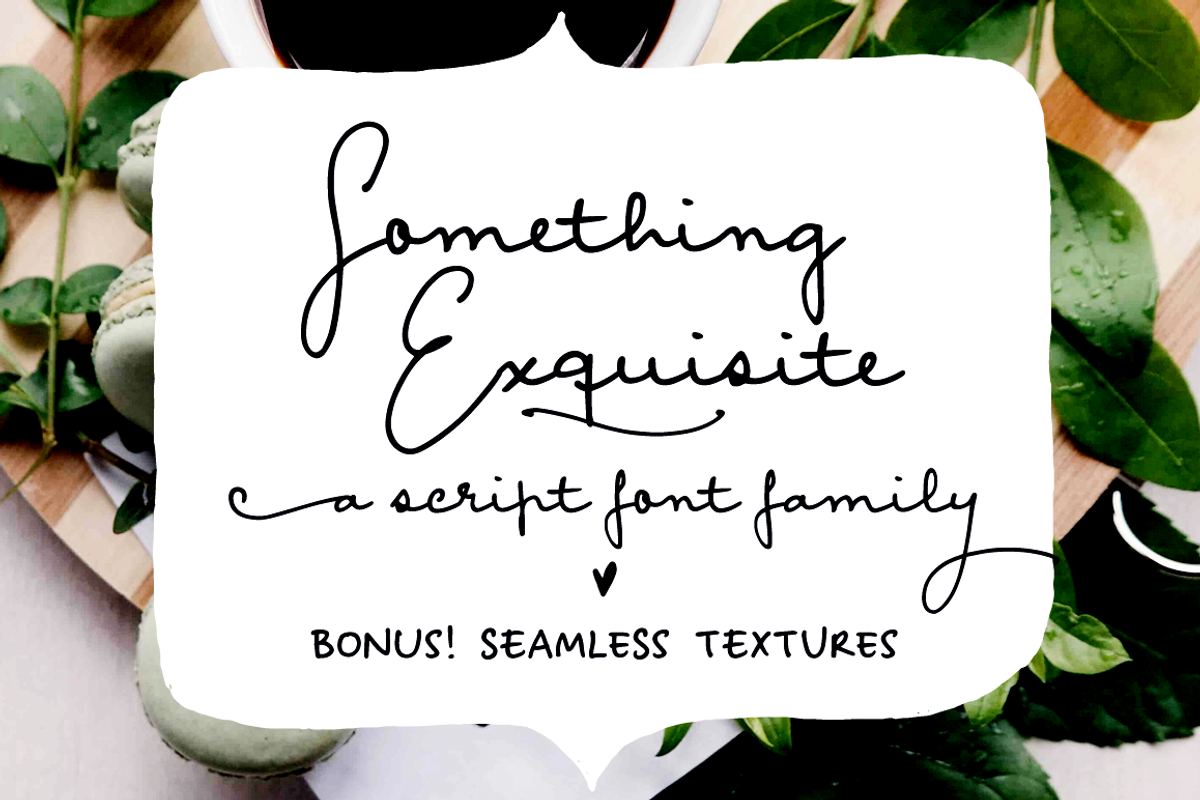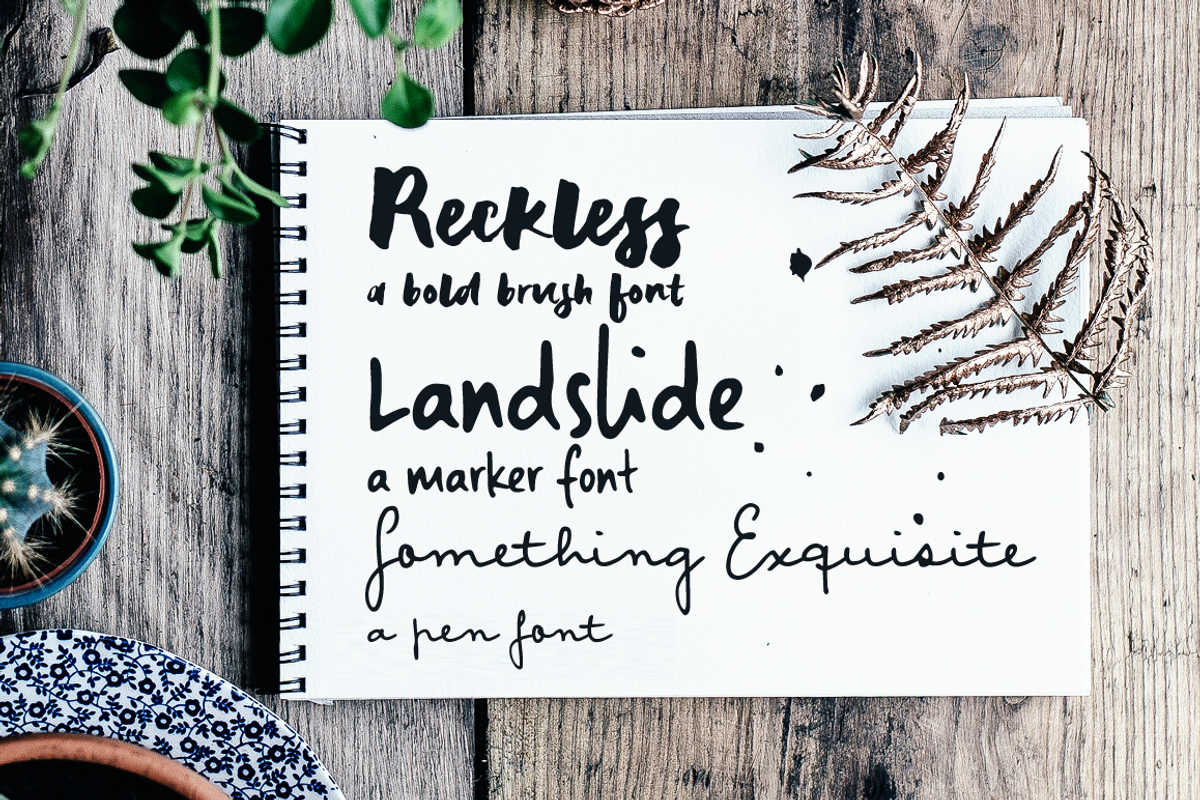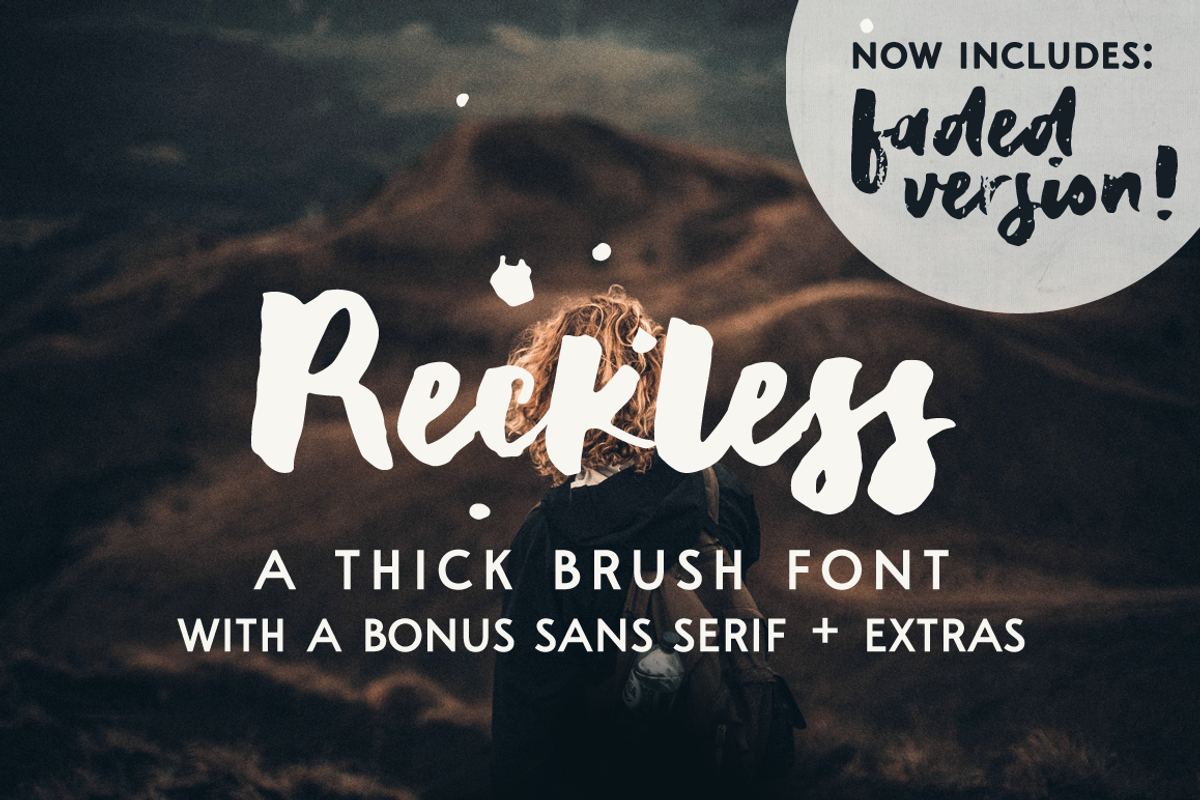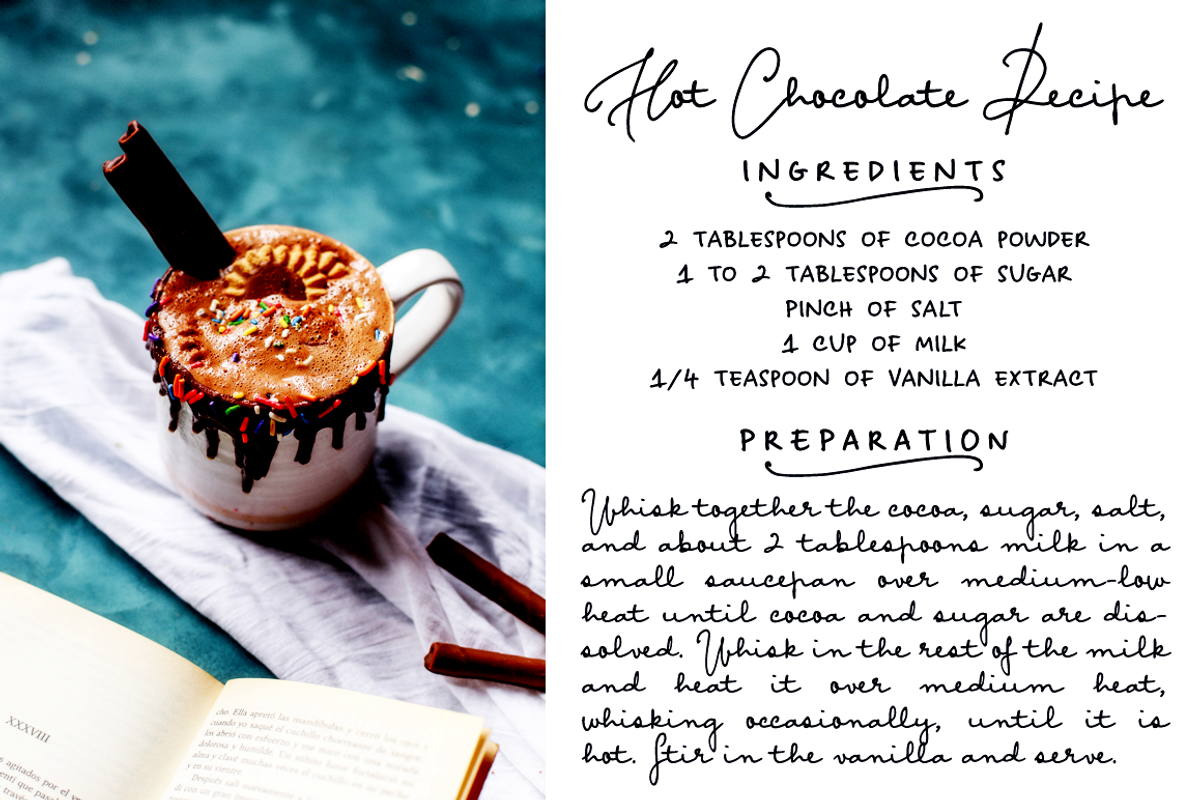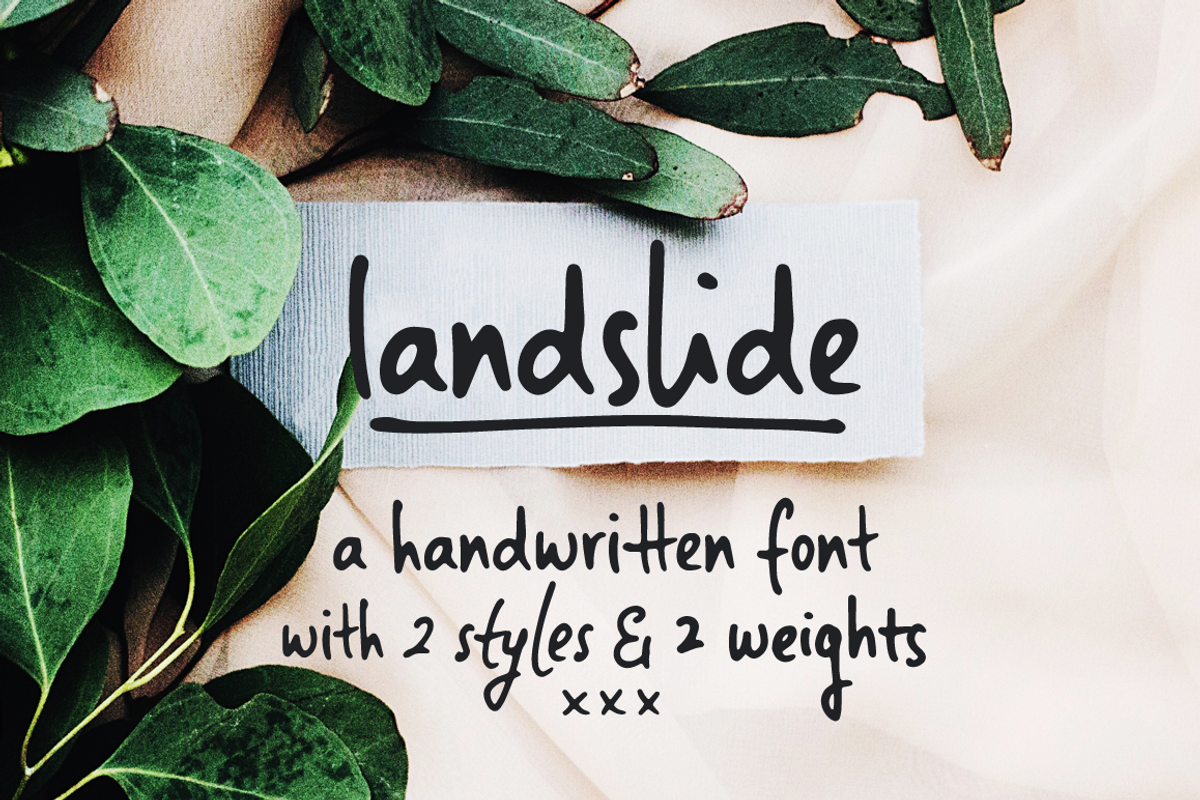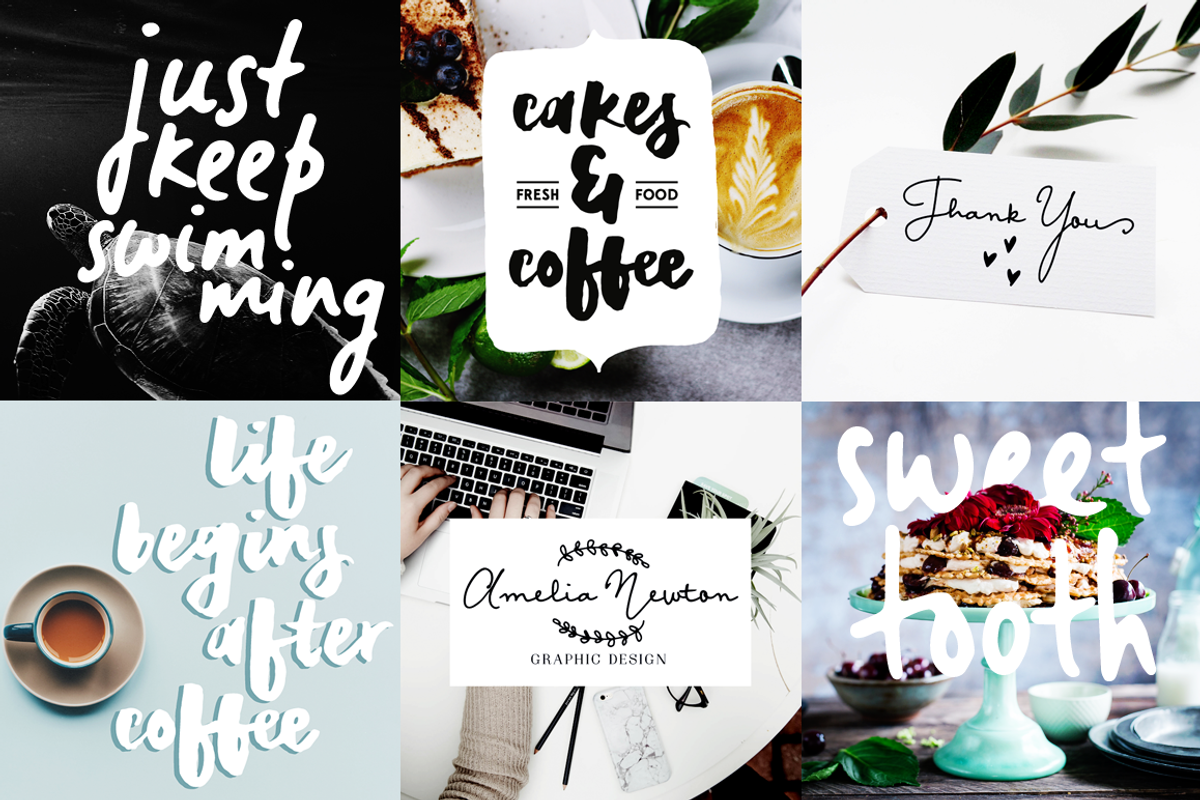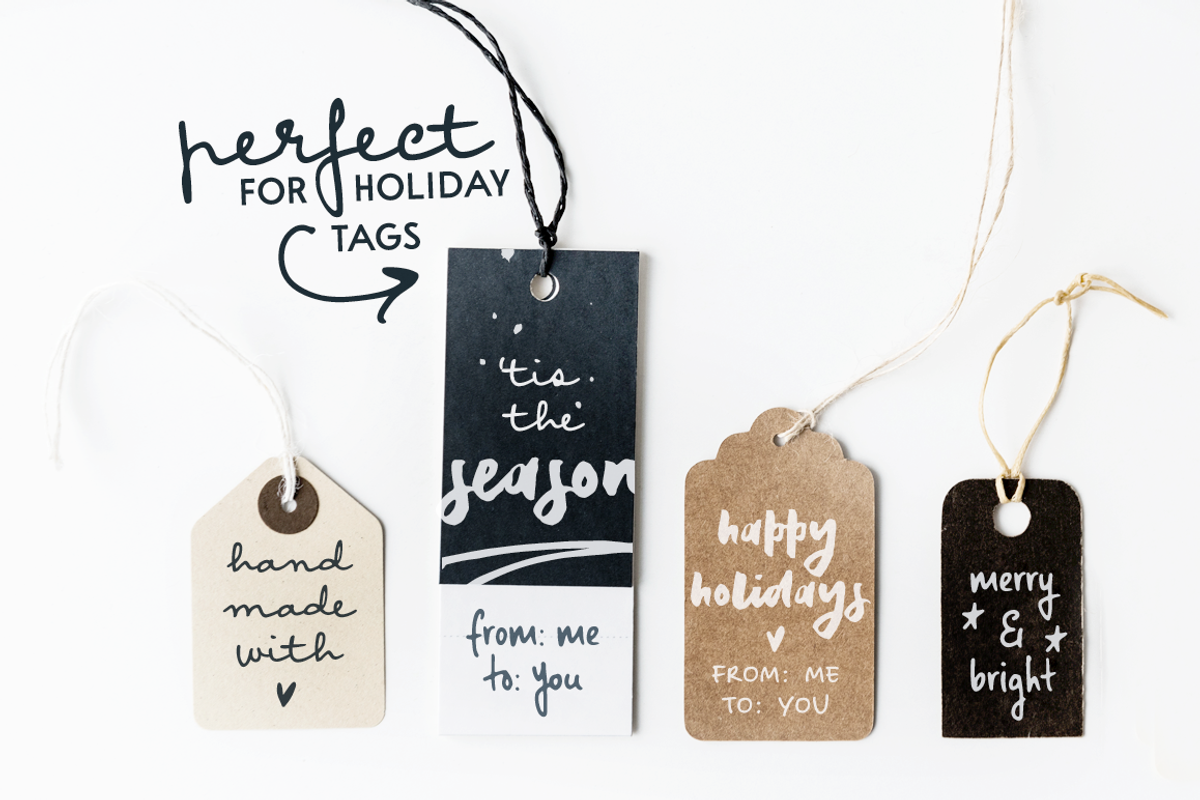
Handwritten Mini Bundle + extras!
This mini font collection includes three cute handwritten typefaces, each with:
A-Z, a-z, 0-9, accents punctuation and symbols
Extra sets of dingbats (swashes, splatters, ornaments, etc.)
A sans serif small caps font that pairs perfectly with the handwritten fonts
An extra set of 5 seamless textures
These fonts are perfect for any design that needs a handwritten feel, such as postcards and notes, as well as for creating logotypes, social media posts, branding and packaging.
- Something Exquisite, a cute script font:
- Landslide, a casual marker font:
- Reckless, a bold brush font: